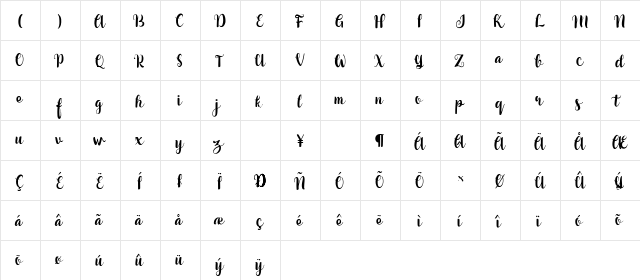
Jelantik Script Demo Regular
| Foundry | Patria Ari Typestudio |
| Designer | Patria Ari Wijonarko |
Design Context for Jelantik Script Demo Typeface
Jelantik Script Demo flows with the natural rhythm of handwritten lettering, making it ideal for designs that call for warmth and personal expression.
Font Pairing: Combine Jelantik Script Demo with a simple geometric sans for maximum contrast — the tension between flowing curves and clean structure is a classic typographic pairing.
Pro Tip: Pair Jelantik Script Demo with a clean sans-serif for supporting text. The contrast between fluid script and geometric structure creates an elegant typographic hierarchy.